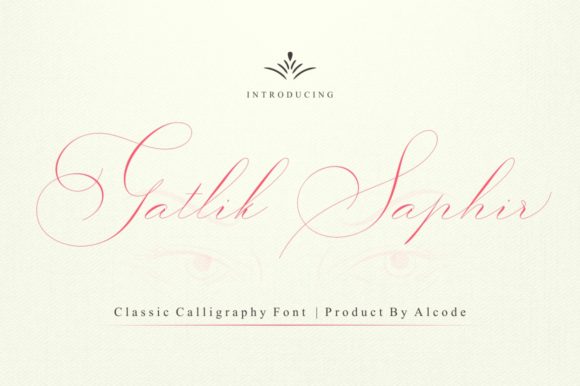
Gatlik Saphir Font: A Magical Handwritten Font for Elegant Designs
Are you looking for a font that exudes elegance and sophistication? Look no further than Gatlik Saphir, a beautiful handwritten font that combines timeless elegance with authentic calligraphy. In this article, we’ll take a closer look at Gatlik Saphir and explore its features, uses, and benefits.
What is Gatlik Saphir Font?
Gatlik Saphir is a magical handwritten font carefully created with a touch of elegance. This font is designed to provide a beautiful combination of timeless elegance and authentic calligraphy, making it particularly suitable for creating gorgeous wedding invitations, beautiful stationary art, and much more. With its unique and elegant design, Gatlik Saphir is sure to make your designs stand out.
Features of Gatlik Saphir Font
Gatlik Saphir font has several features that make it a popular choice among designers. Some of its key features include:
- Elegant Design: Gatlik Saphir has an elegant and sophisticated design that is perfect for creating high-end designs.
- Handwritten Style: This font has a handwritten style that gives it a personal and authentic touch.
- Timeless Elegance: Gatlik Saphir combines timeless elegance with authentic calligraphy, making it a versatile font that can be used for a variety of designs.
- Beautiful Ligatures: This font features beautiful ligatures that add a touch of elegance to your designs.
Uses of Gatlik Saphir Font
Gatlik Saphir font is a versatile font that can be used for a variety of designs. Some of the most popular uses of this font include:
- Wedding Invitations: Gatlik Saphir is particularly suitable for creating gorgeous wedding invitations that exude elegance and sophistication.
- Stationary Art: This font is also perfect for creating beautiful stationary art, such as greeting cards, thank you cards, and more.
- Logos and Branding: Gatlik Saphir can be used to create elegant logos and branding materials that reflect a high-end image.
- Packaging Design: This font can also be used for packaging design, such as labels, tags, and more.
Benefits of Using Gatlik Saphir Font
There are several benefits to using Gatlik Saphir font in your designs. Some of the most significant benefits include:
- Unique and Elegant Design: Gatlik Saphir has a unique and elegant design that will make your designs stand out.
- Versatility: This font is versatile and can be used for a variety of designs, from wedding invitations to logos and branding.
- Easy to Read: Gatlik Saphir is easy to read, making it perfect for designs that require a clear and concise message.
- High-Quality: This font is of high-quality, ensuring that your designs look professional and polished.
Tips and Tricks for Using Gatlik Saphir Font
Here are some tips and tricks for using Gatlik Saphir font:
- Use it for Headings: Gatlik Saphir is perfect for headings and titles, as it adds a touch of elegance and sophistication.
- Pair it with Other Fonts: Pair Gatlik Saphir with other fonts to create a unique and interesting design.
- Experiment with Colors: Experiment with different colors to find the one that works best with Gatlik Saphir.
- Use it for Digital Designs: Gatlik Saphir can be used for digital designs, such as social media graphics, blog posts, and more.
Gatlik Saphir font is a magical handwritten font that combines timeless elegance with authentic calligraphy. With its unique and elegant design, versatility, and high-quality, Gatlik Saphir is perfect for creating gorgeous wedding invitations, beautiful stationary art, and much more. By following the tips and tricks outlined in this article, you can make the most of Gatlik Saphir and create stunning designs that exude elegance and sophistication.